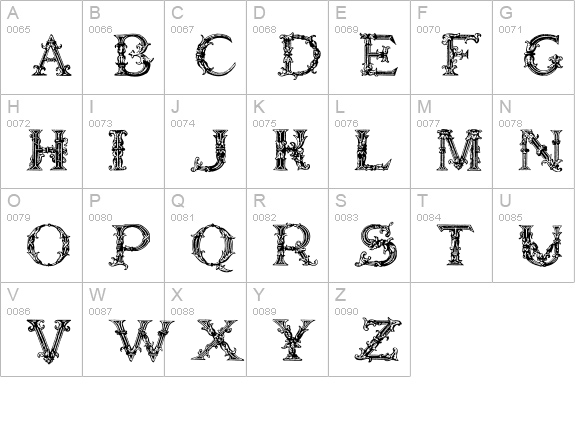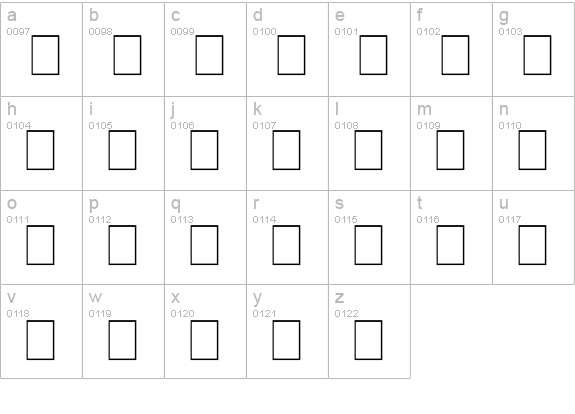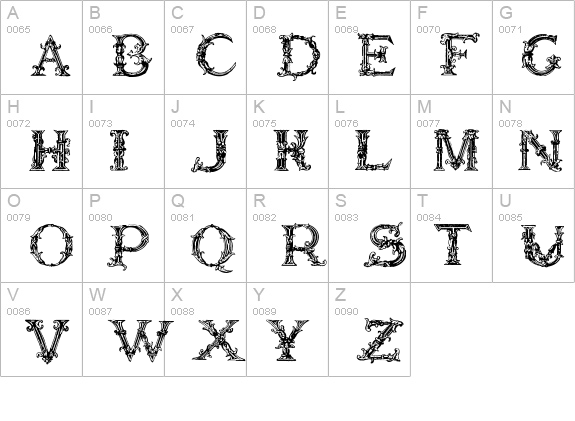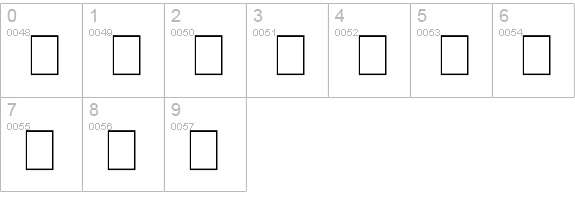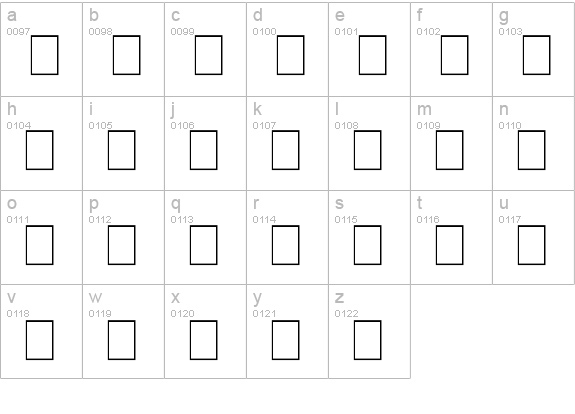
Burgoyne_Initials Font Details
Burgoyne_Initials font is a stunning display typeface that exudes elegance and sophistication. Its intricate details and classic design make it perfect for adding a touch of luxury to your projects. With its ornate letterforms and vintage charm, Burgoyne_Initials font is ideal for creating eye-catching headlines, invitations, and other creative designs. What makes Burgoyne_Initials font even more appealing is that it is available for free download at FontsMarket.com. This means you can easily access this beautiful font and use it in your projects without any cost. Whether you're a designer looking to add a touch of elegance to your work or someone who appreciates fine typography, Burgoyne_Initials font is sure to impress. Download it today and elevate your designs with this exquisite typeface.